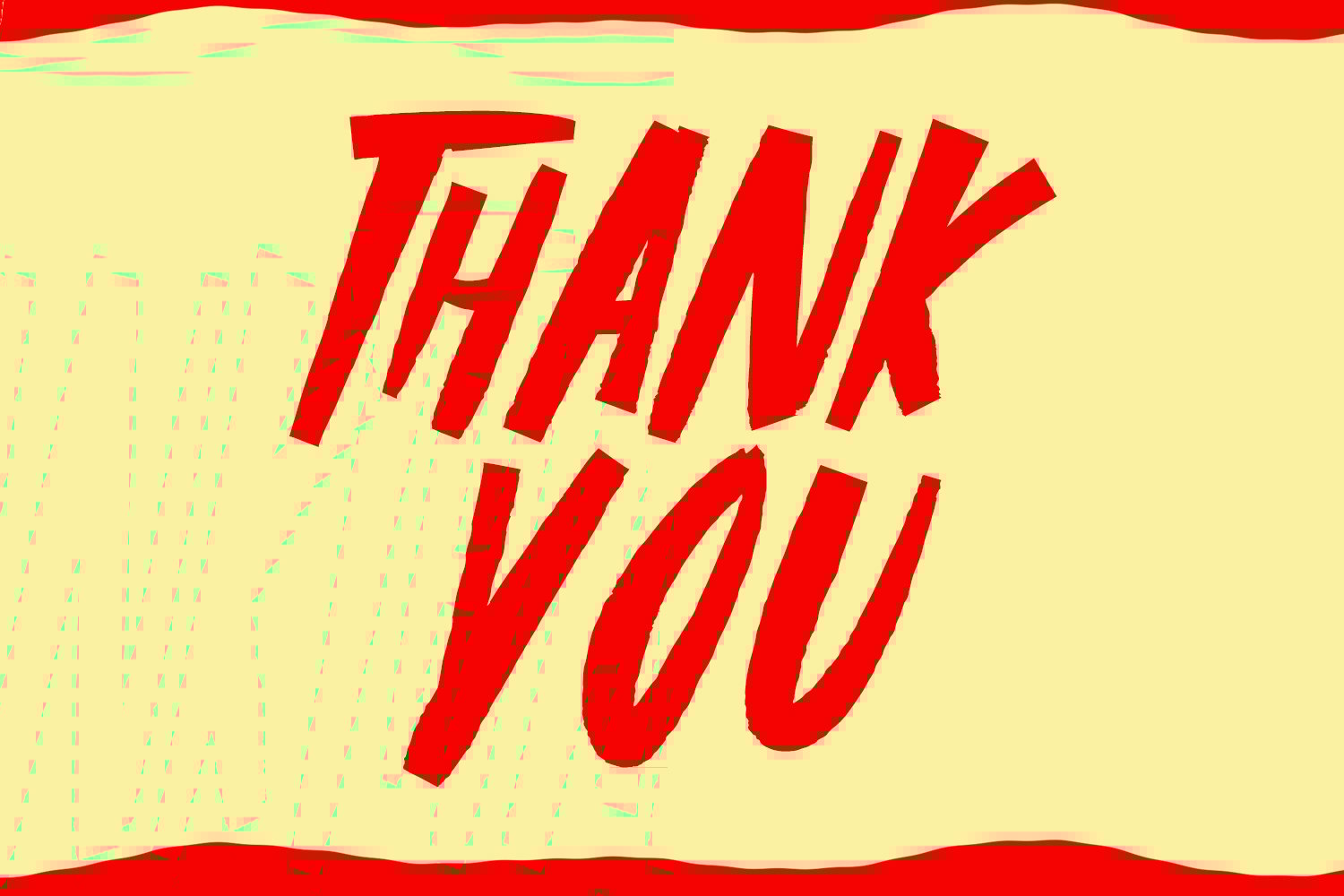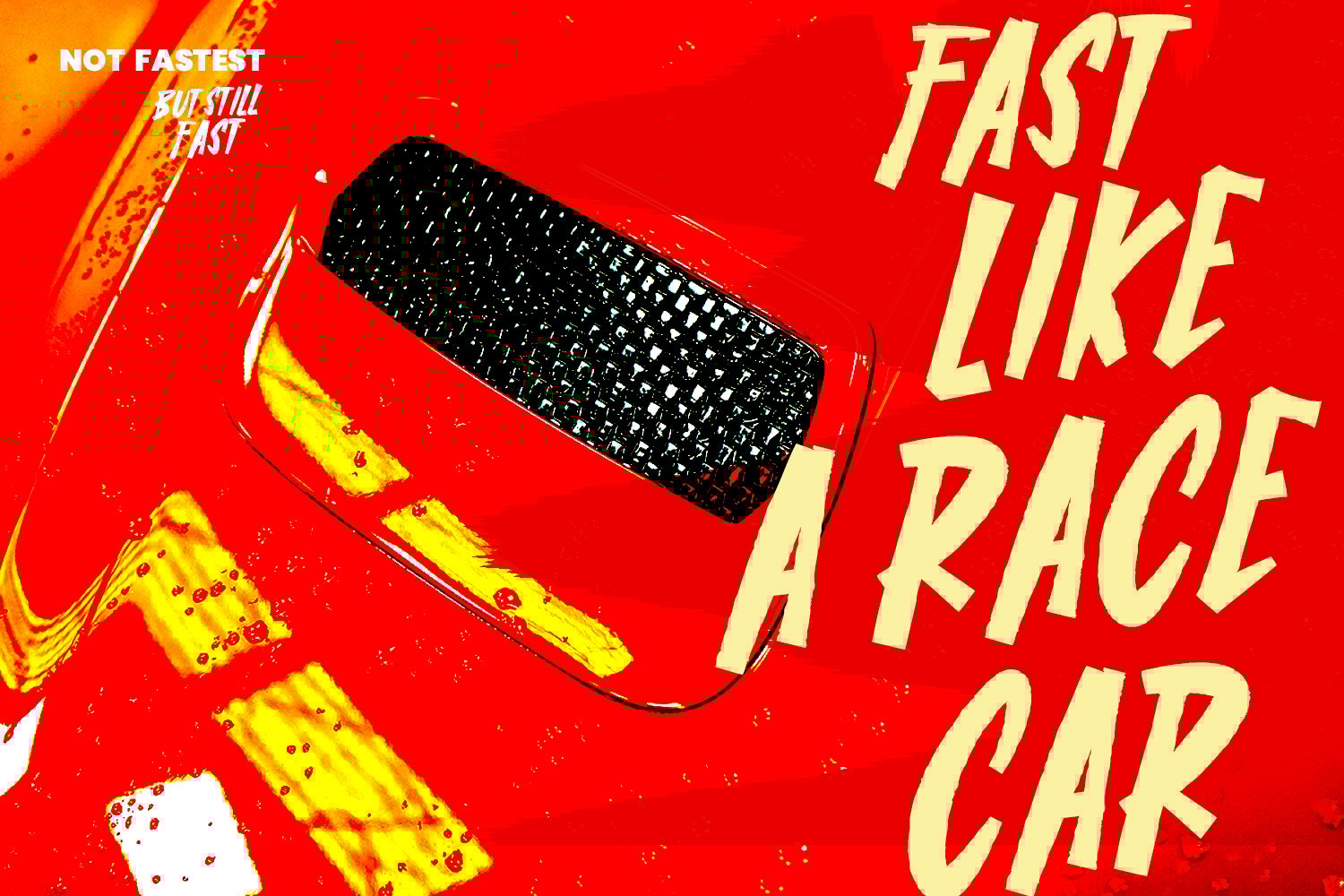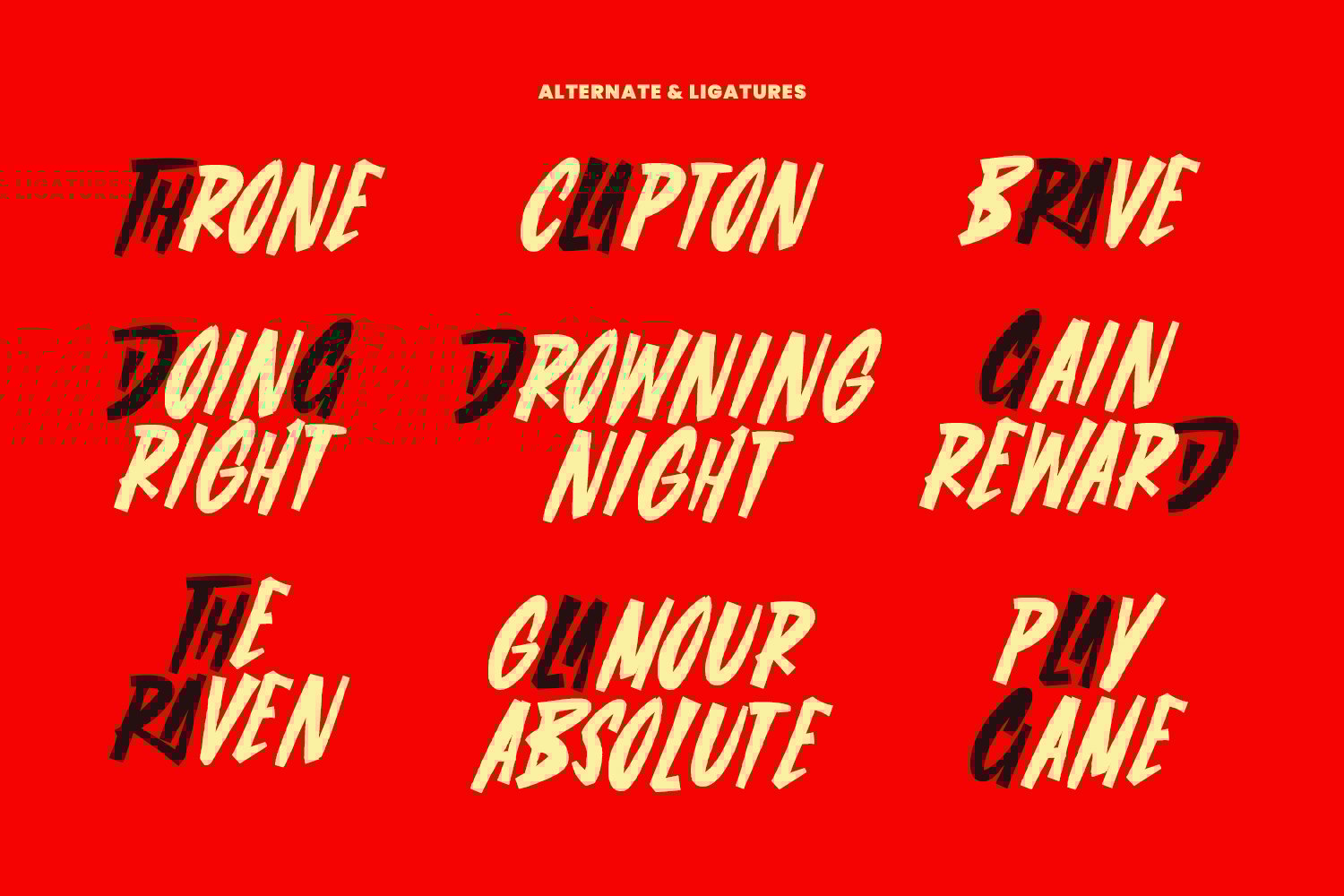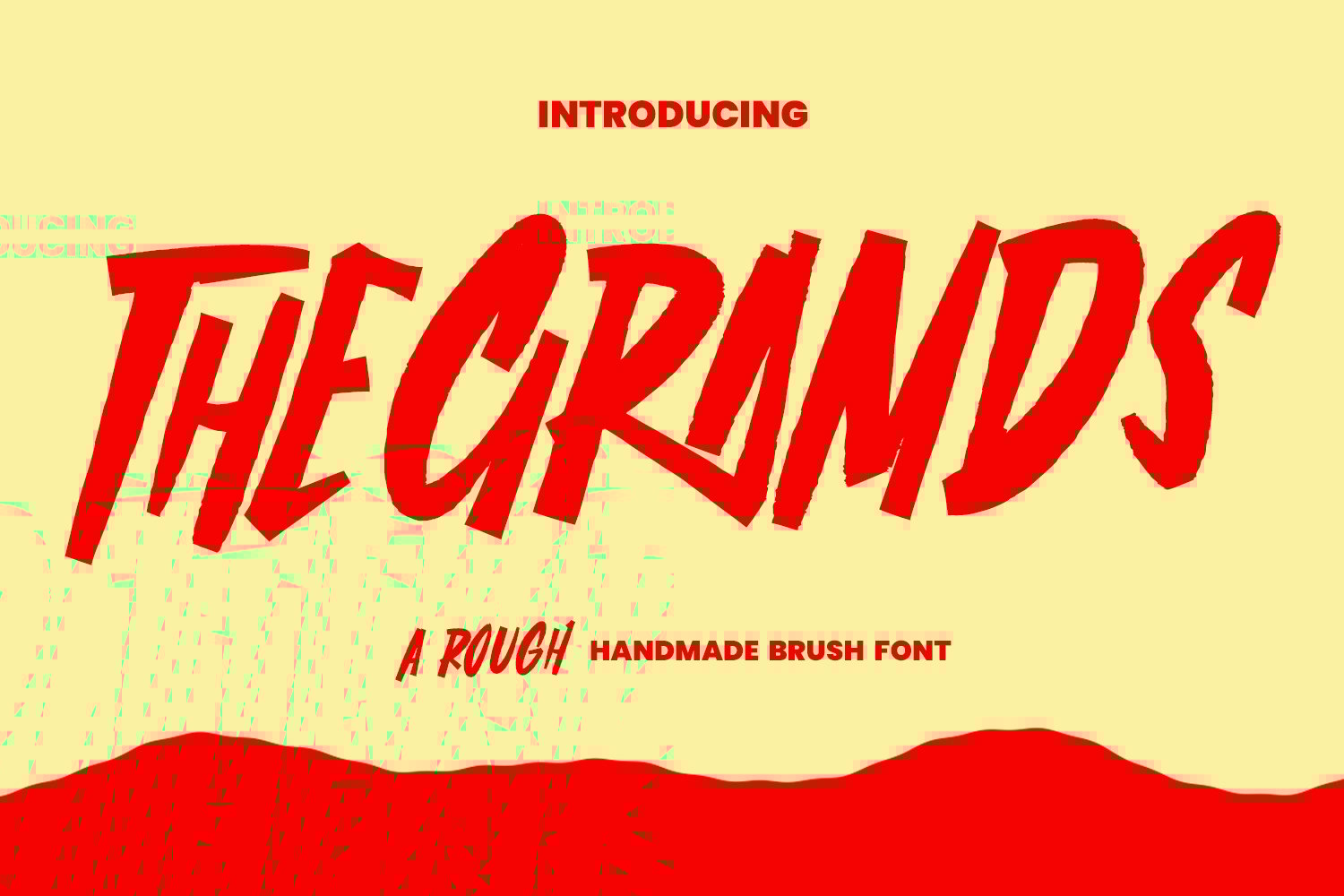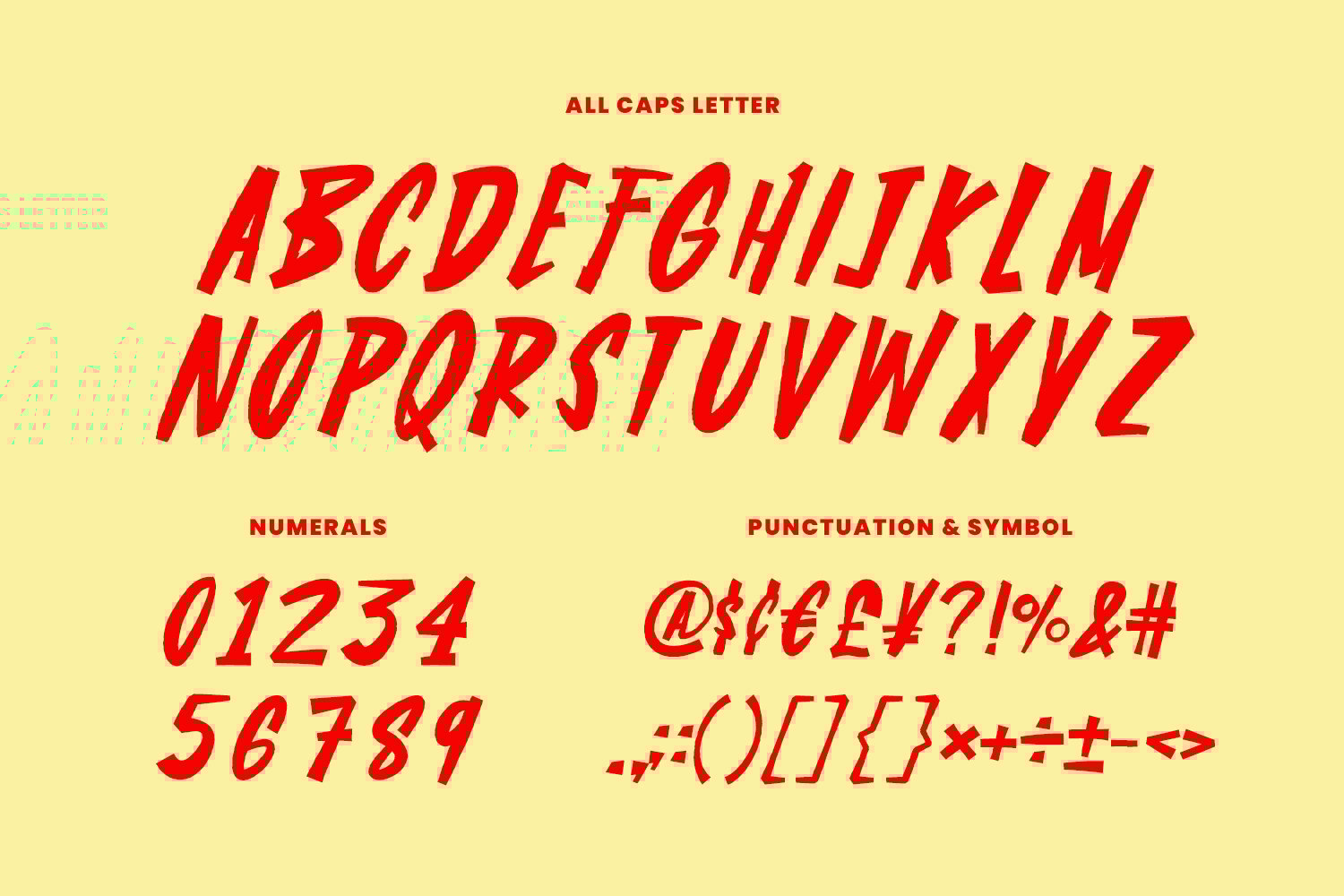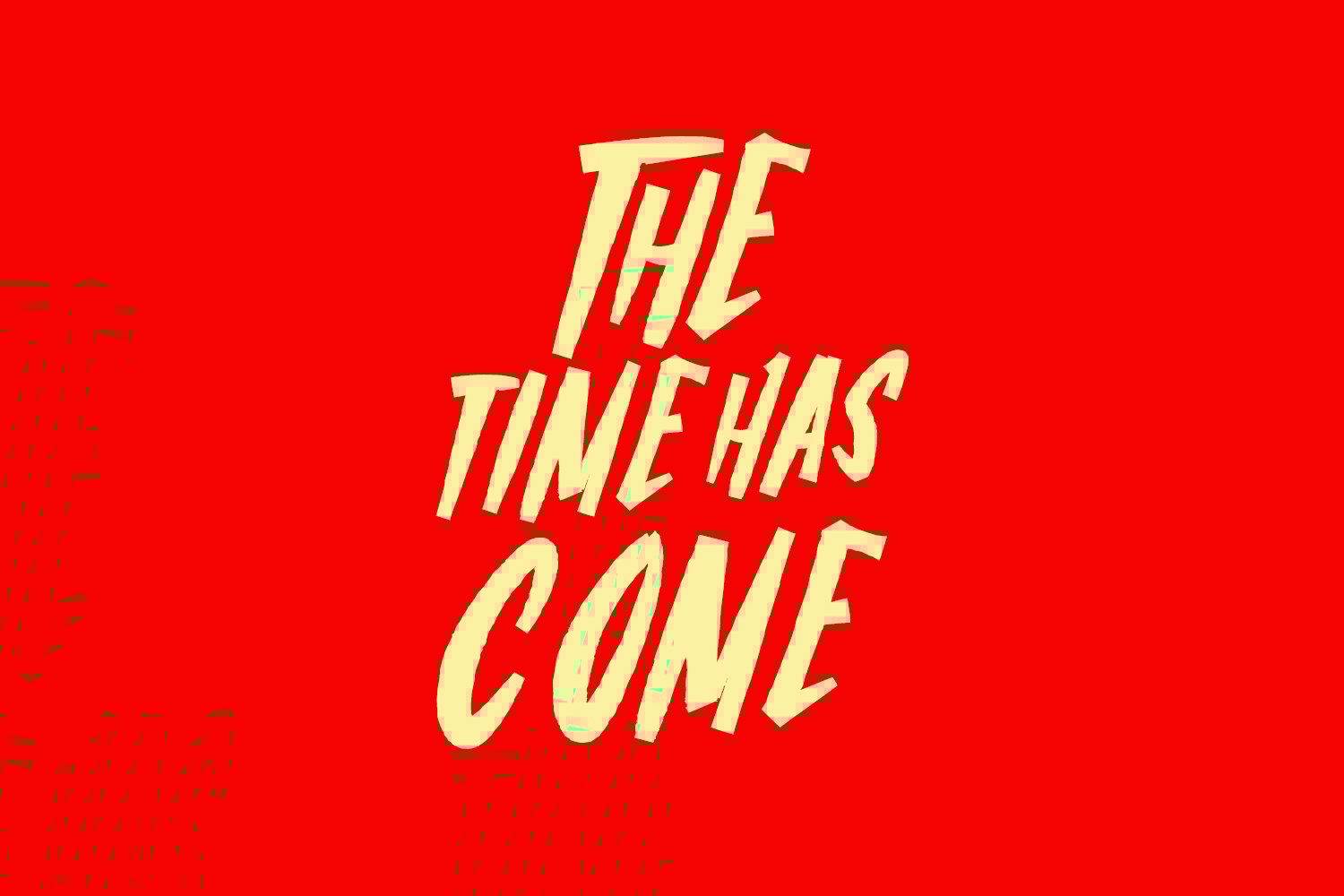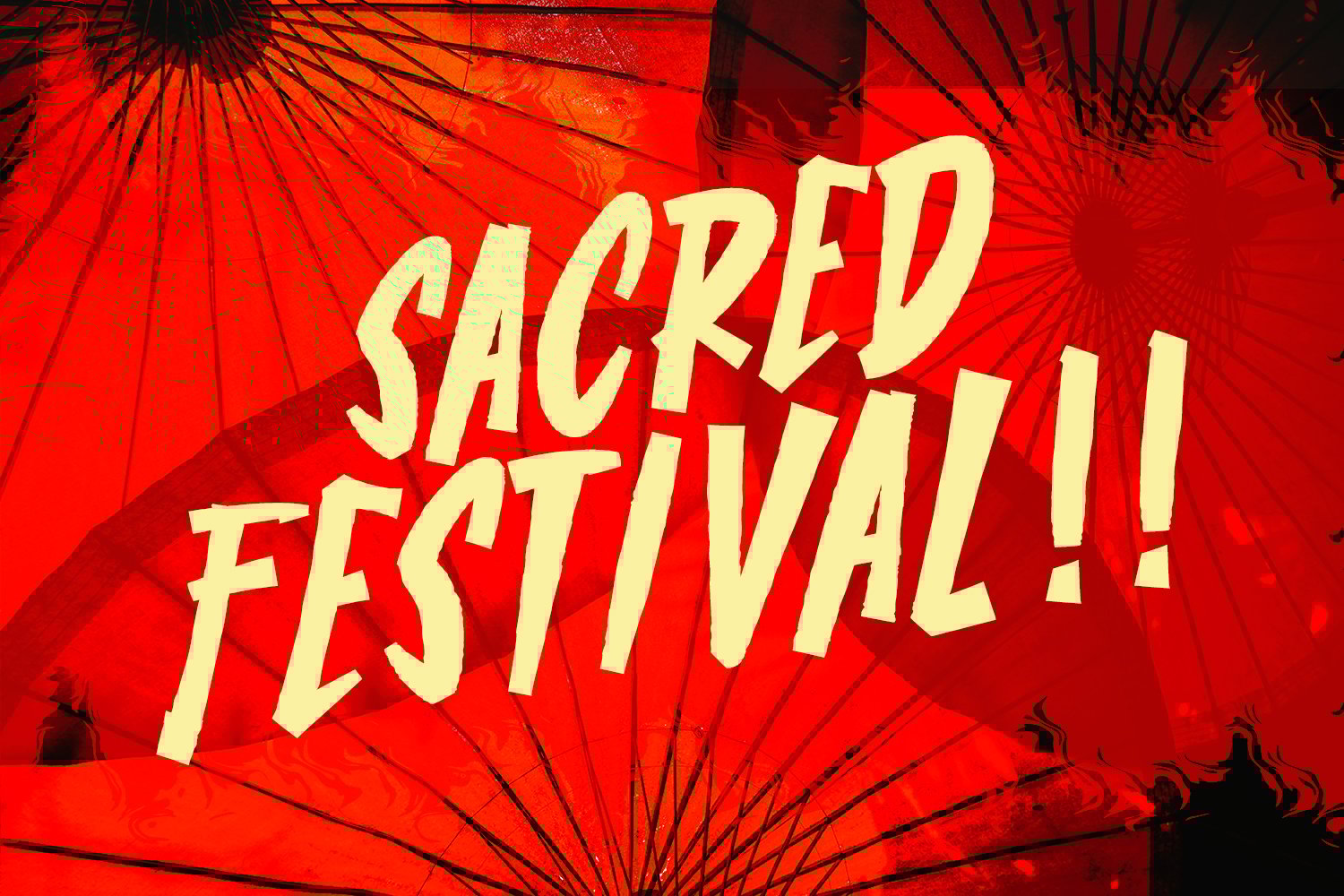
The Gramds Rough Handmade Brush Font
Give your designs an authentic brush handcrafted feel. "The Gramds Rough Handmade Brush Font" is perfectly suited to stationery, logo, typography quotes, magazine or book cover, website header, flyer, clothing, branding, packaging design and more.